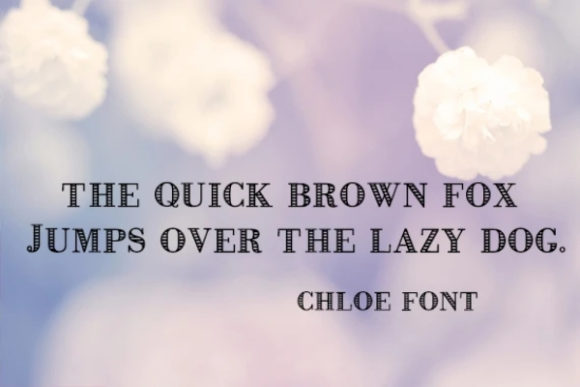
Introducing Chloe Font: A Playful and Nostalgic Display Font
Are you looking for a font that can add a touch of vintage charm to your designs? Look no further than Chloe Font! This display font is designed to evoke a sense of playful nostalgia, making it perfect for designers and crafters who want to add a retro touch to their work.
The Vintage Aesthetic of Chloe Font
Chloe Font is a beautifully crafted display font that delivers an incredible vintage aesthetic. With its unique blend of classic and modern elements, this font is sure to transport you back to a bygone era. Whether you’re working on a design project for a client or creating something for your own portfolio, Chloe Font is the perfect choice for adding a touch of nostalgia and whimsy.
What Makes Chloe Font So Special?
So, what sets Chloe Font apart from other display fonts on the market? For starters, its playful and nostalgic feel is unmatched. The font’s unique design elements, such as its rounded edges and classic typography, work together to create a truly one-of-a-kind look that’s sure to turn heads. Additionally, Chloe Font is incredibly versatile, making it suitable for use in a wide range of design projects, from branding and advertising to packaging and more.
Uses for Chloe Font
Chloe Font is a versatile display font that can be used in a variety of design projects. Here are just a few ideas to get you started:
- Branding and Logo Design: Use Chloe Font to create a unique and memorable logo for your business or brand.
- Advertising and Marketing: Add a touch of vintage charm to your ads and marketing materials with Chloe Font.
- Packaging Design: Use Chloe Font to create eye-catching packaging that stands out on store shelves.
- Social Media Graphics: Add a playful and nostalgic touch to your social media graphics with Chloe Font.
- Web Design: Use Chloe Font to create a unique and memorable website that showcases your brand’s personality.
Tips for Using Chloe Font
Here are a few tips for getting the most out of Chloe Font:
- Use it sparingly: Because Chloe Font is a display font, it’s best used sparingly to add emphasis and create visual interest.
- Pair it with other fonts: Chloe Font pairs well with a variety of other fonts, so don’t be afraid to experiment with different combinations.
- Experiment with colors: Chloe Font looks great in a variety of colors, so don’t be afraid to try out different color schemes.
Chloe Font is a unique and versatile display font that’s perfect for designers and crafters who want to add a touch of vintage charm to their work. With its playful and nostalgic feel, Chloe Font is sure to transport you back to a bygone era. Whether you’re working on a design project for a client or creating something for your own portfolio, Chloe Font is a great choice for adding a retro touch to your designs.
Here are a few frequently asked questions about Chloe Font:
- What type of font is Chloe Font?
- Chloe Font is a display font.
- What is Chloe Font best used for?
- Chloe Font is best used for adding a touch of vintage charm to design projects, such as branding, advertising, packaging, and more.
- Is Chloe Font easy to read?
- Chloe Font is a display font, so it’s best used sparingly to add emphasis and create visual interest. It may not be suitable for body text or other long-form content.